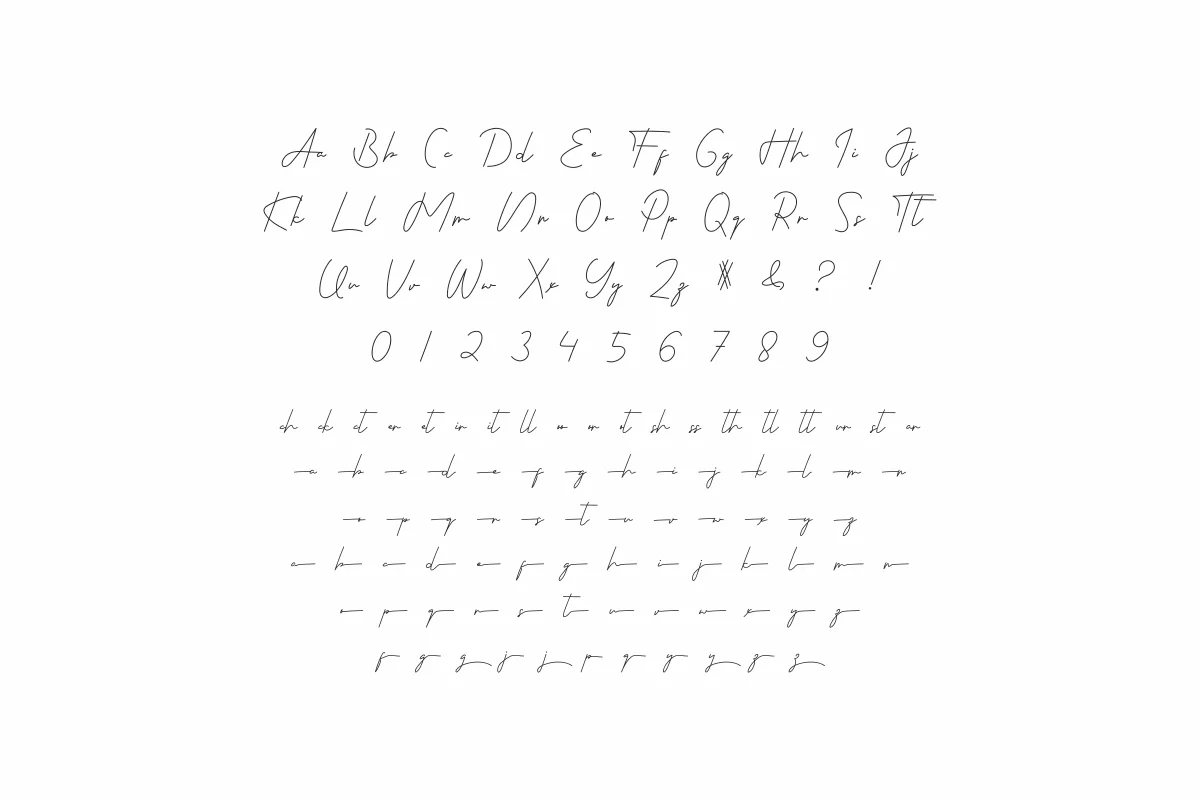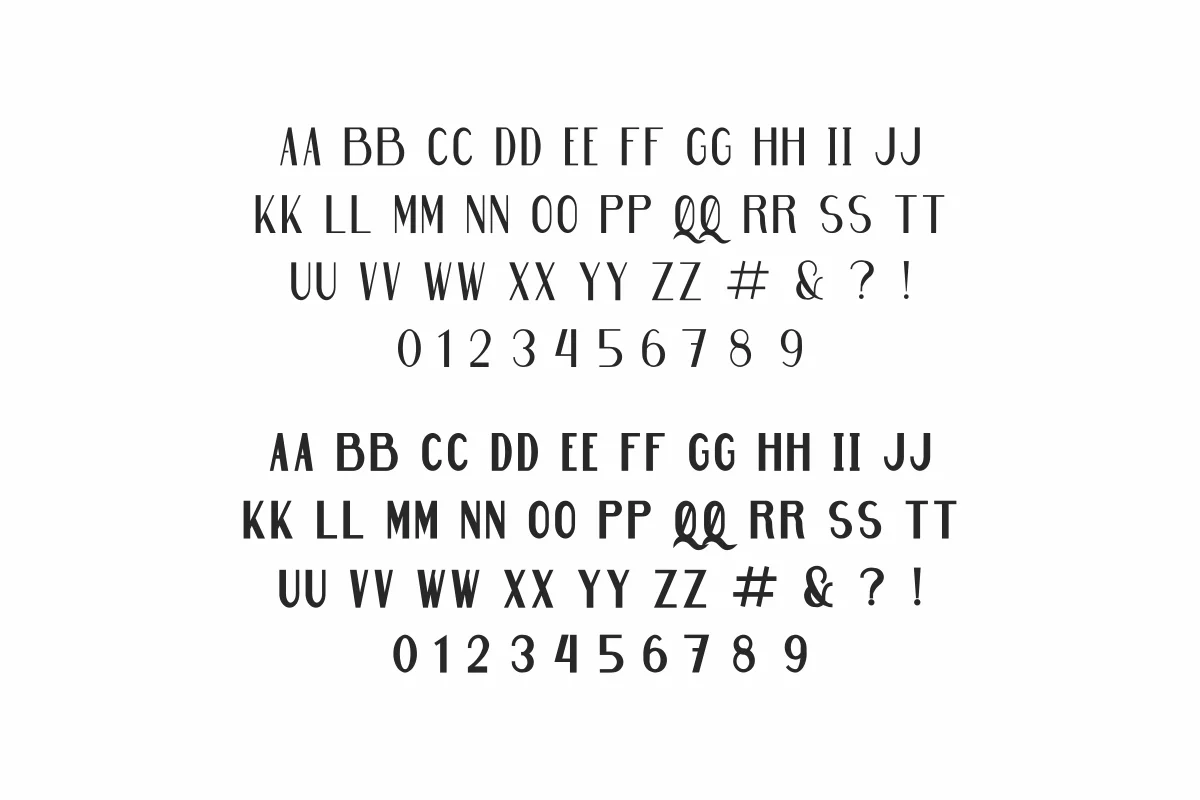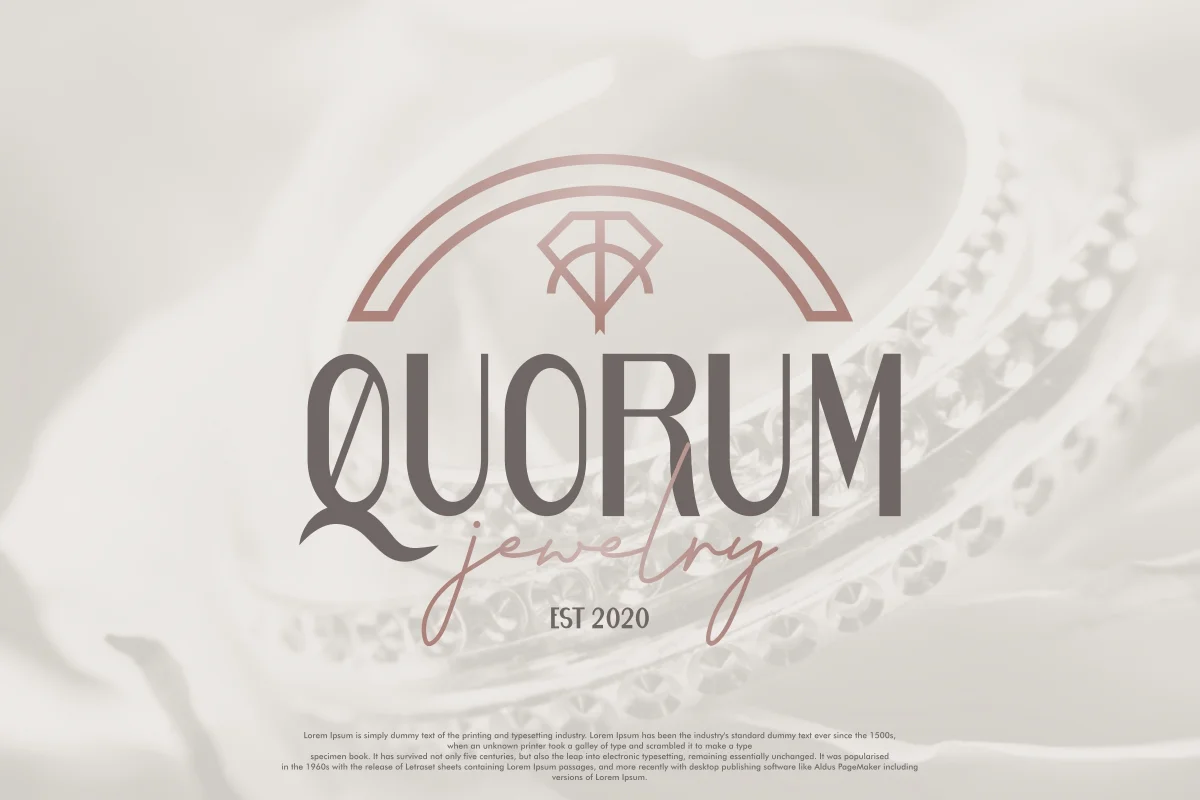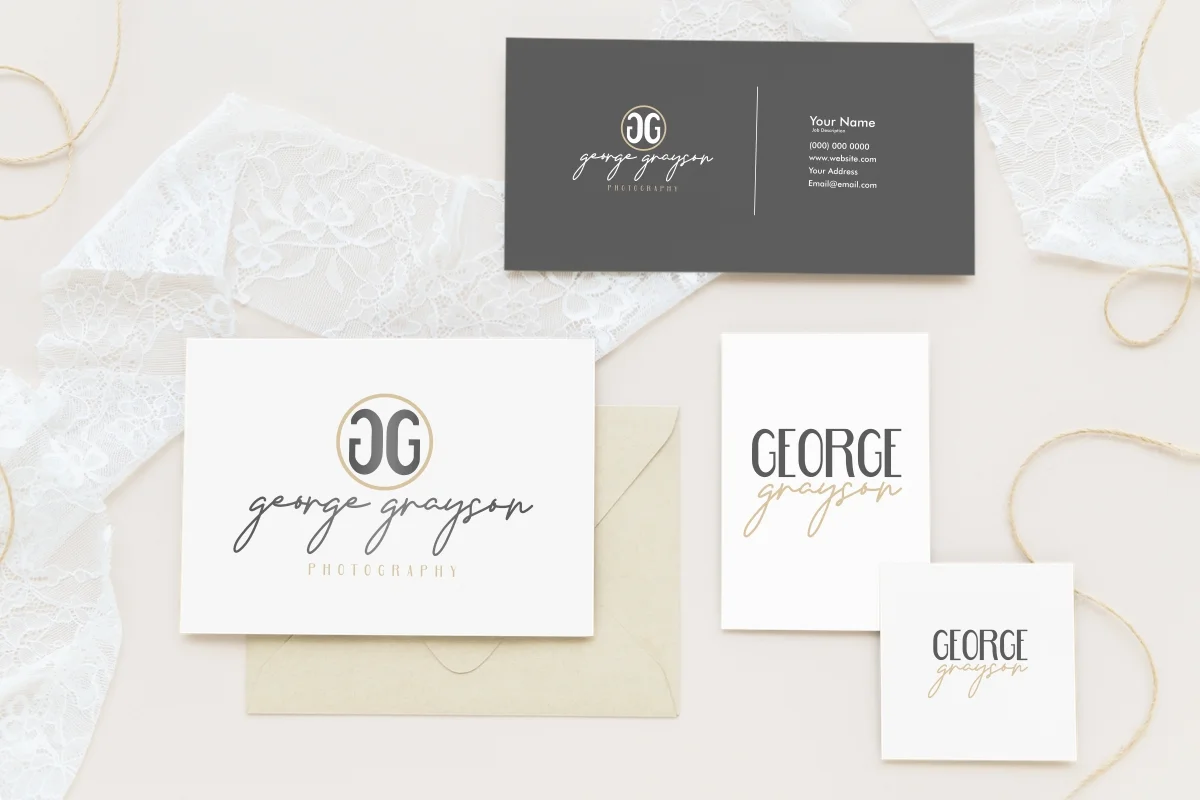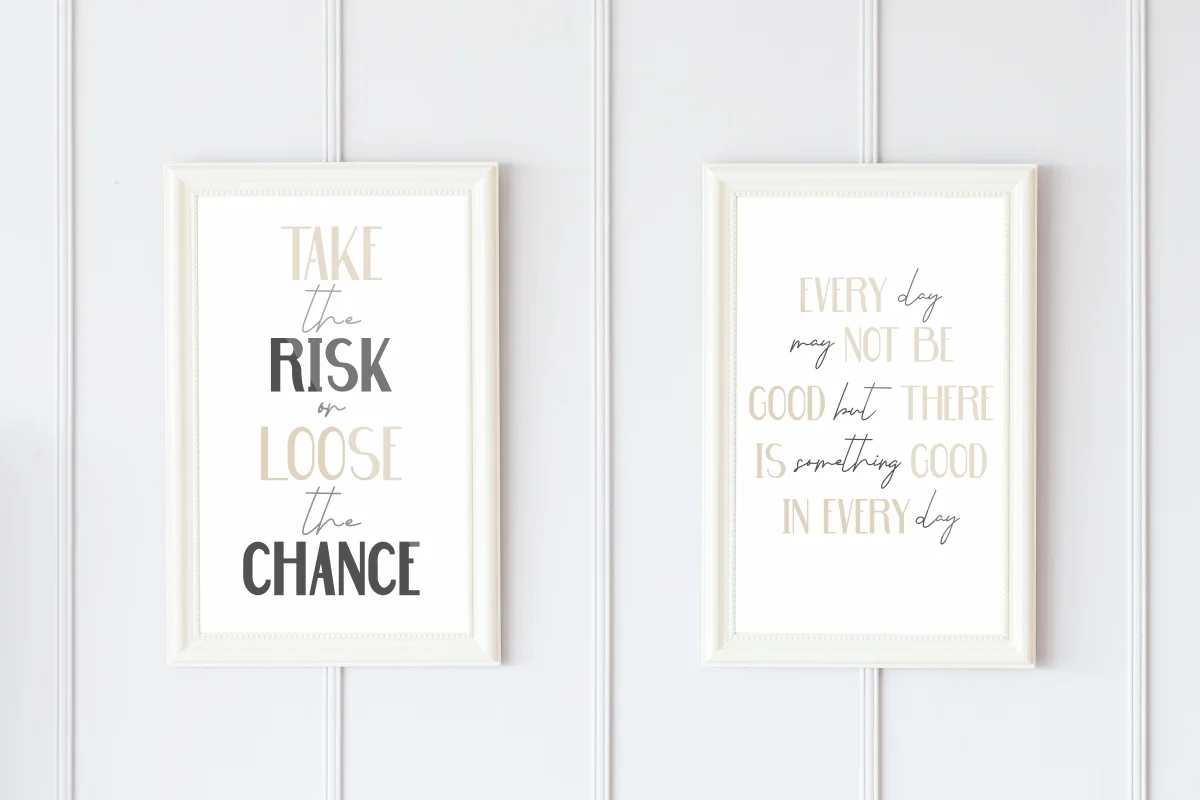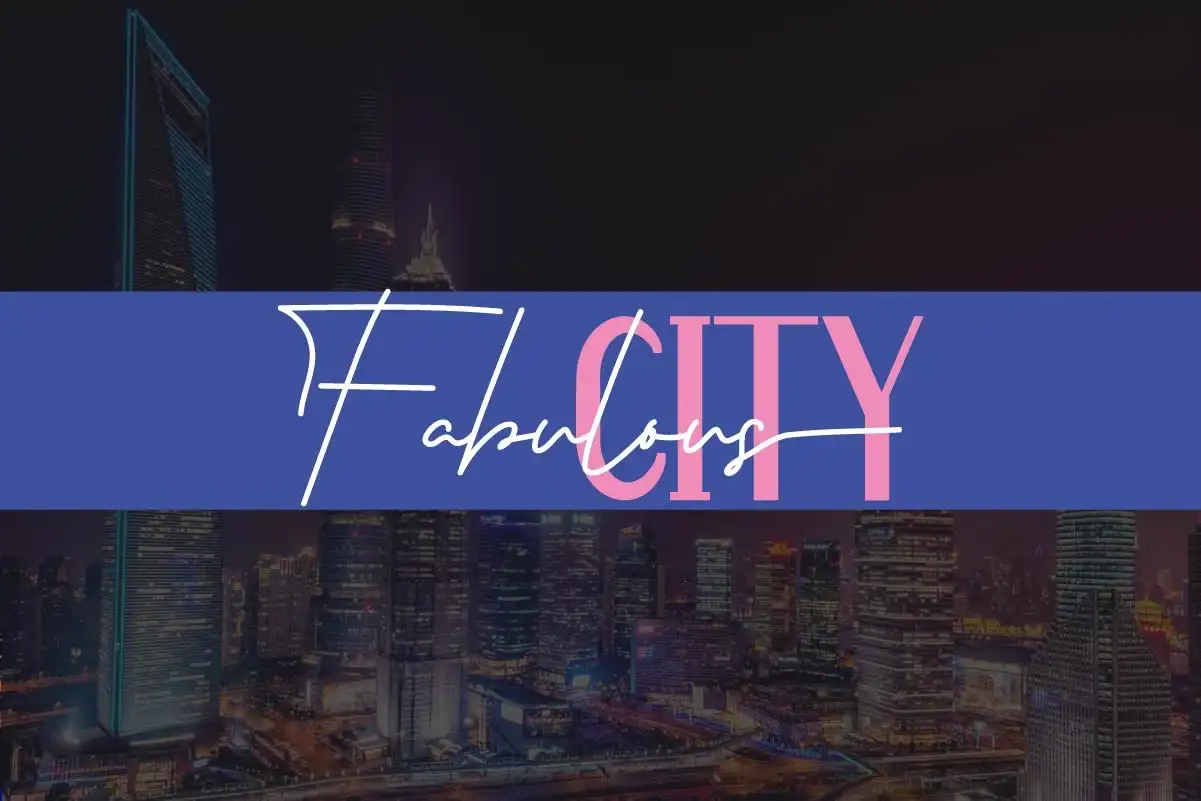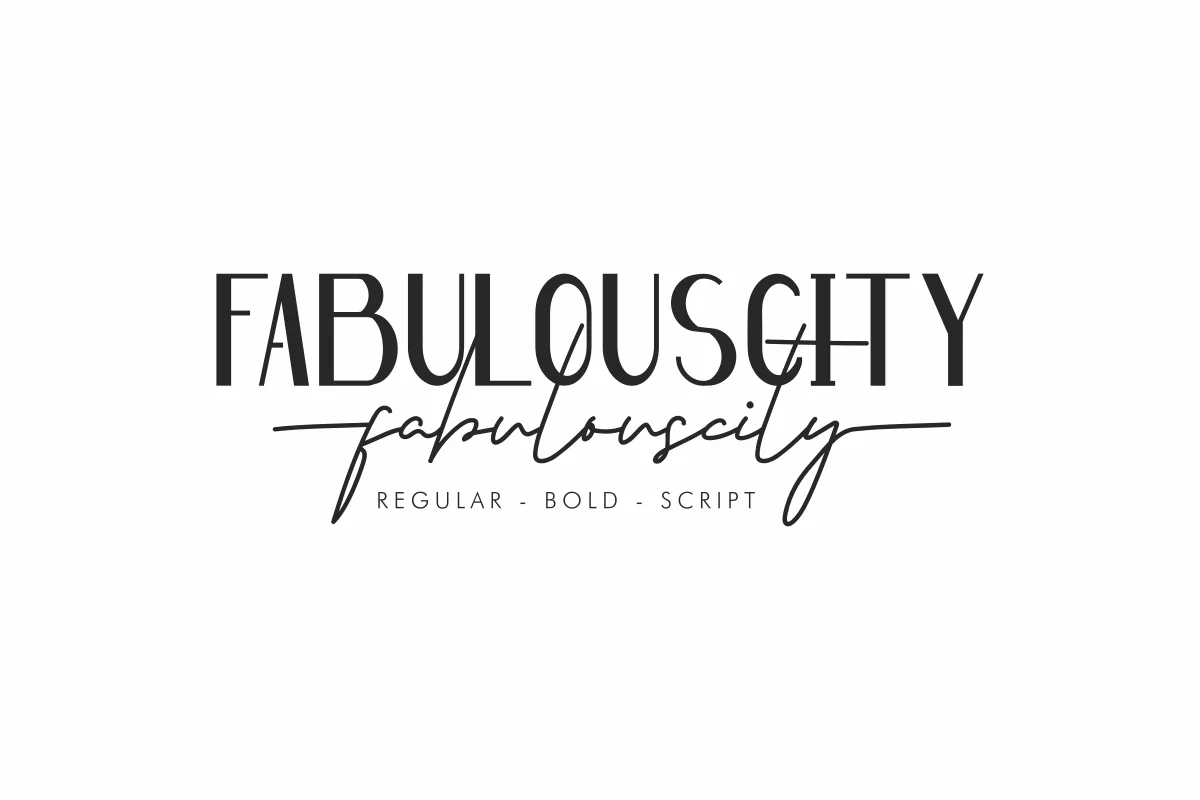
Fabulouscity is a font duo font famliy with four different styles. Originally made by NihStudio Font Designers : Nouval, Widi and Sarah. On the package you will get :
Handcrafted here in our Studio , Indonesia. Fabulouscity will be great for any projects (require extended license) including : branding, logo, stationery, business card, signage, flyer, brochure etc.
The Fabulouscity has 4 styles : Regular, Bold and Script (signature)